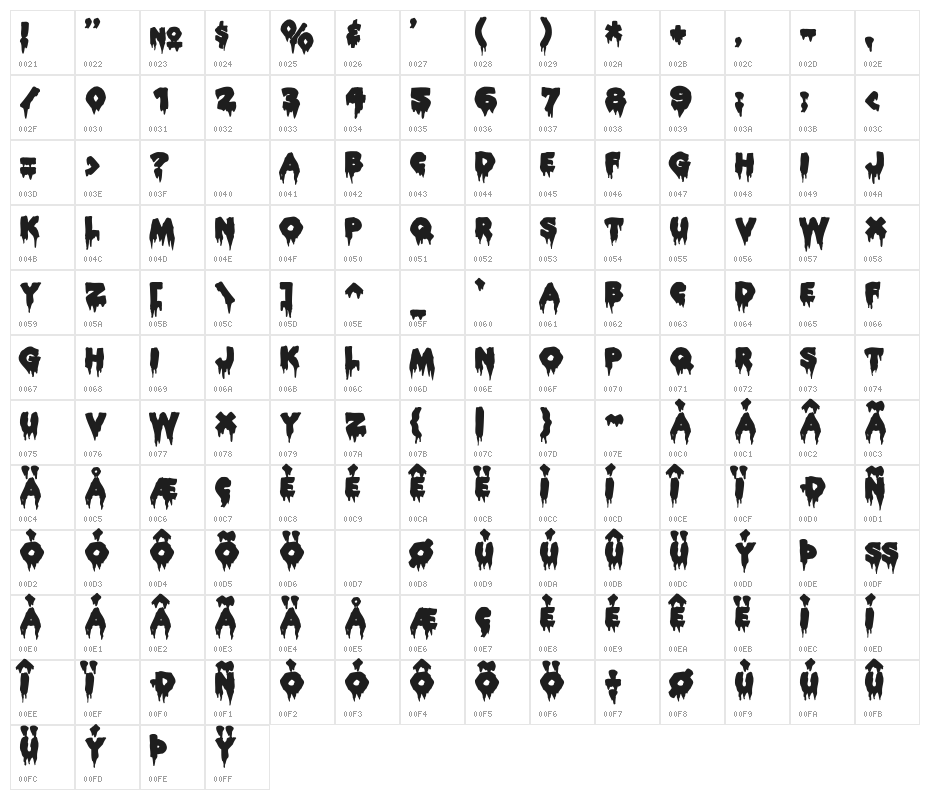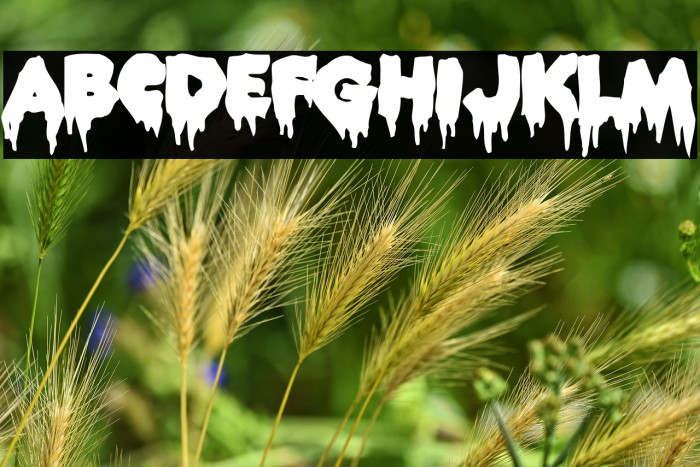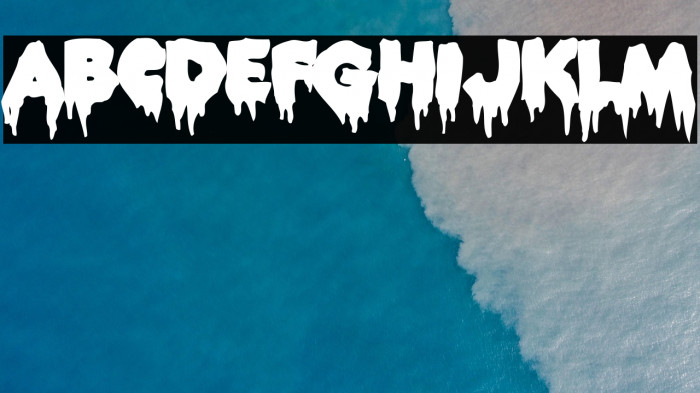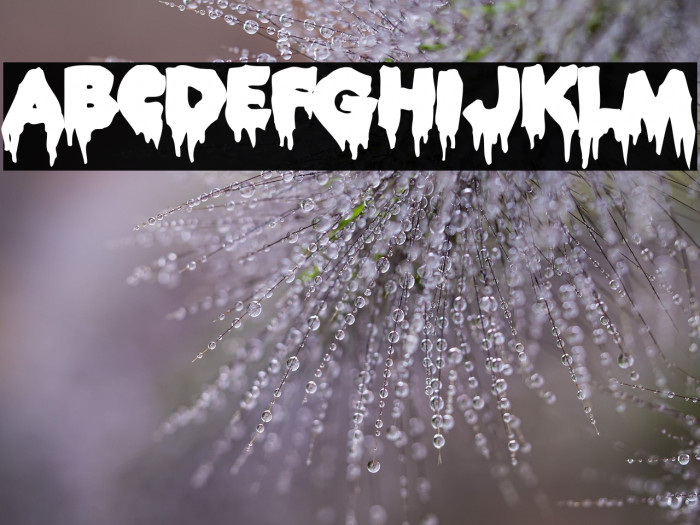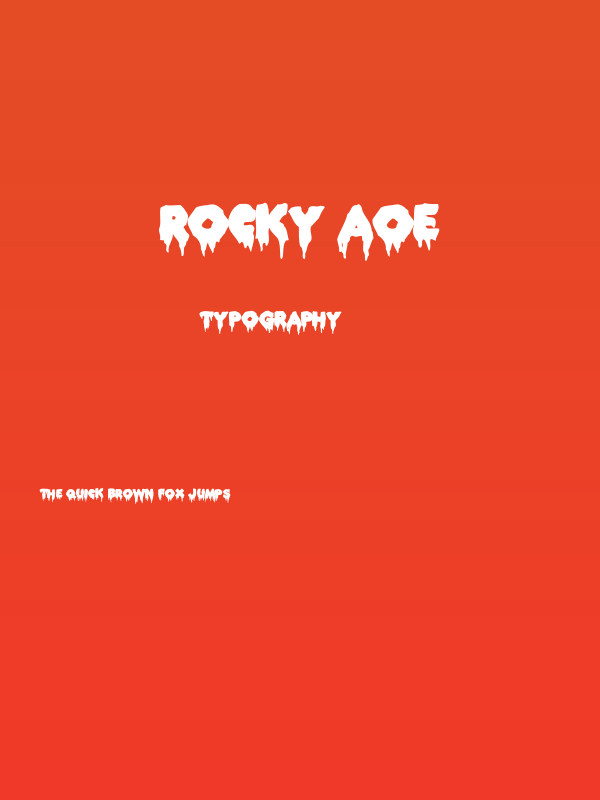
ROCKY AOE Font
ROCKY AOE Description
This font features a bold and dramatic style with a dripping effect that gives it a spooky, horror-themed appearance. The characters are heavily stylized, with jagged edges and a sense of movement, as if they are melting or dripping downwards. This creates a visually striking and unique look that is perfect for themed designs. The uppercase and lowercase letters maintain a consistent style, while the numbers and special characters follow the same dripping motif, ensuring a cohesive look across all text elements.
| Proposed Projects | Ideal for Halloween-themed designs, horror movie posters, haunted house flyers, and any project requiring a spooky, dramatic typeface. |